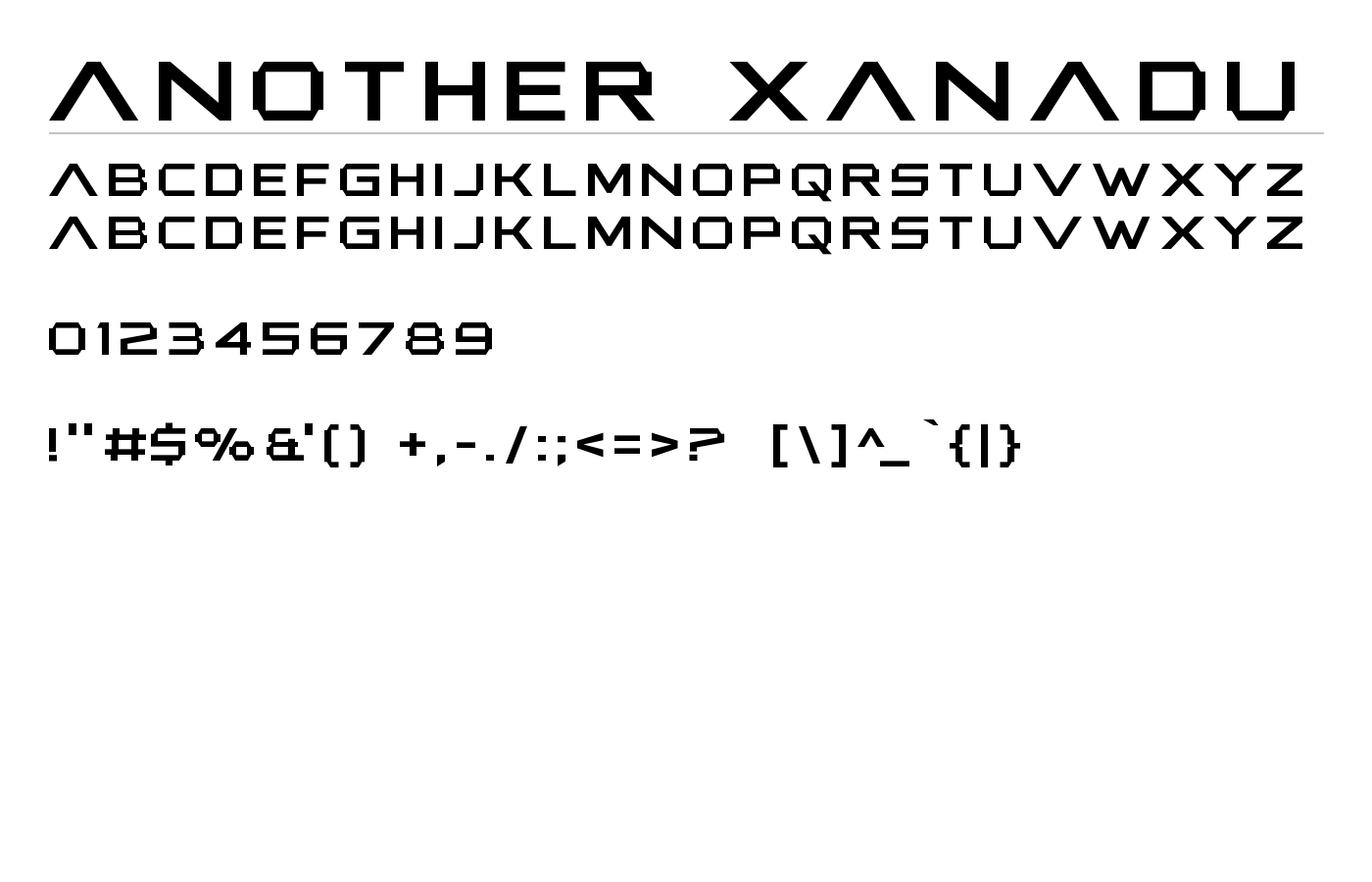
Another Xanadu is a futuristic, geometric sans serif font with a distinctive angular and tech-inspired design. Its all-uppercase style features sharp, single-weight strokes and high contrast between straight lines and diagonal cuts, making it ideal for modern branding, posters, and digital interfaces that seek a bold, high-tech aesthetic. This font works best in display and headline settings where its unique shapes can stand out and convey a cutting-edge, innovative vibe.
Another Xanadu Font